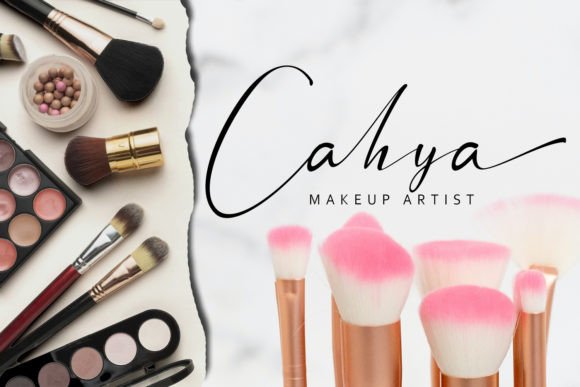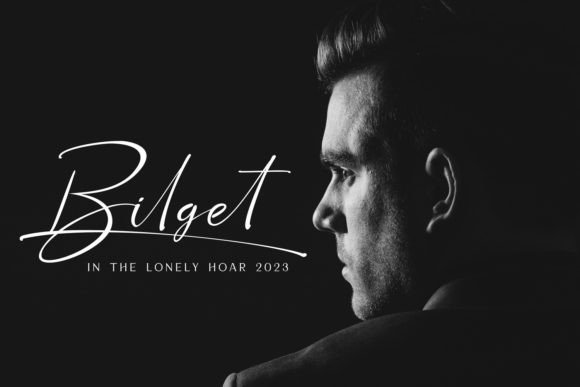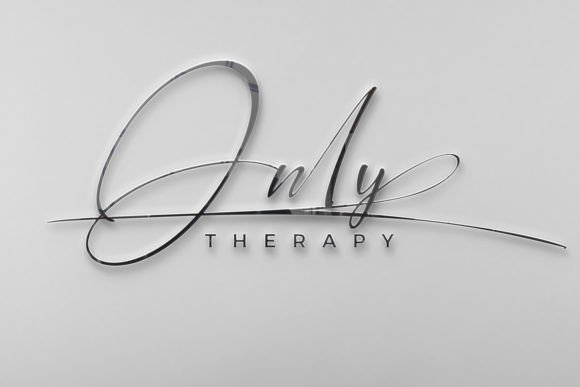
Introduction to Dalty Font
Have you ever stared at a blank canvas, trying to bring your creative vision to life? You see it in your mind, but the right words just won’t come. This is where the perfect font can be a game-changer. For designers, the right typography can elevate a project from ordinary to extraordinary.
One font that stands out from the crowd is the Dalty Font. This stylish signature font boasts a contemporary and sophisticated accent, making it perfect for logo and branding projects, large header text, and even product packaging. Its high-quality design is sure to impress, and with a free download available, it’s an accessible design resource that can take your creative project to the next level.
Whether you’re working on a high-end campaign or a personal project, the Dalty Font is a valuable addition to your design toolkit. Its transparent background and PUA encoded glyphs make it easy to use and customize, giving you the freedom to get creative and bring your vision to life.
Key Features of Dalty Font
- High-quality design for creative projects: Dalty Font is a versatile font suitable for various design needs, from branding to typography-based art.
- Transparent background: The font’s transparent background allows for seamless integration with any design element, giving you more creative control.
- Unique characteristics: Dalty Font features a distinctive, modern design with clean lines and a minimalist aesthetic.
Honest Review: Dalty Font
I recently had the chance to work with the Dalty Font, and I must say, it’s been a game-changer for my creative project. As a designer, I’m always on the lookout for high-quality design resources that can elevate my work.
One of the things that works well with the Dalty Font is its versatility. It comes in a variety of weights and styles, making it perfect for anything from logos to body text. The transparent background option is also a huge plus, allowing me to easily customize my designs without any distractions.
- High-quality design that’s perfect for a variety of creative projects
- Transparent background option for easy customization
That being said, there are a few limitations to the Dalty Font. The font doesn’t come with a complete character set, which can be a problem for more complex designs. Additionally, some of the weights and styles can be a bit inconsistent, which may require some extra work to get the look just right.
Overall, I’m impressed with the Dalty Font. While it’s not perfect, it’s definitely a valuable design resource that can help take my creative project to the next level. ✨
Dalty Font is a versatile font that can be used in various creative projects, including social media graphics, presentations, and documents. You can use it to create eye-catching headings, titles, and body text. With its high-quality design and transparent background, Dalty Font is perfect for designers and non-designers alike.